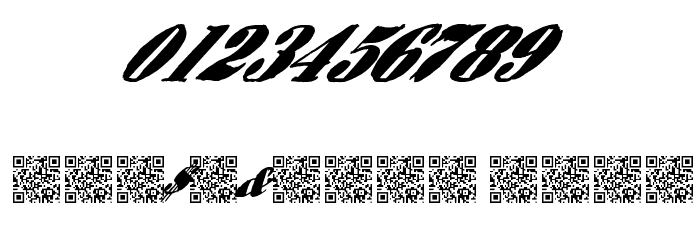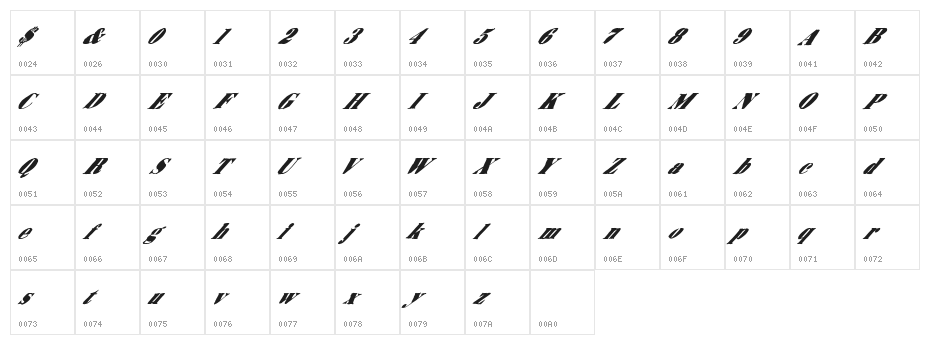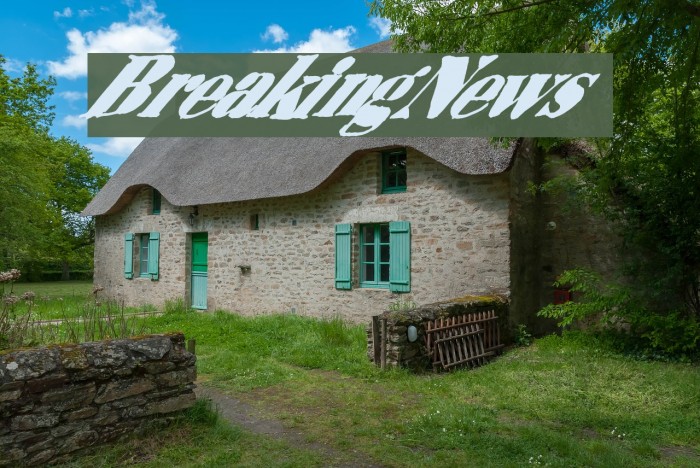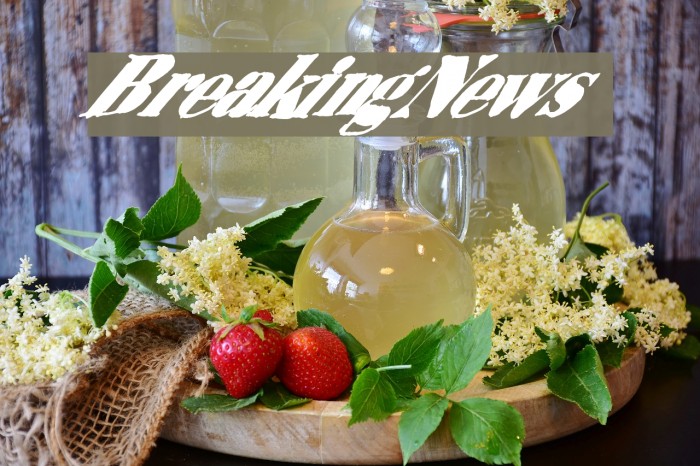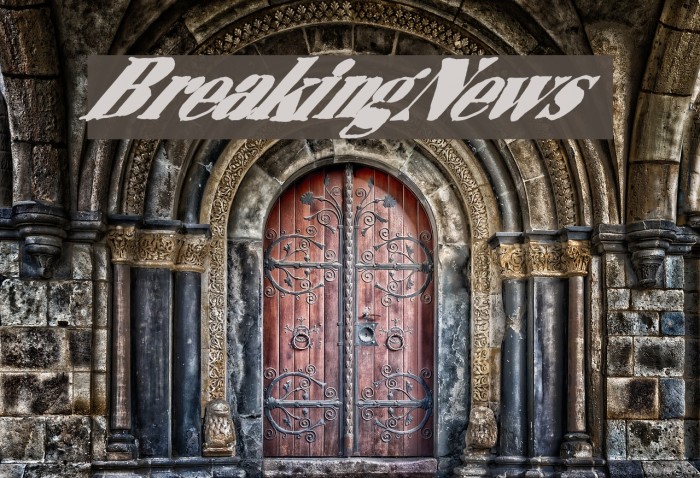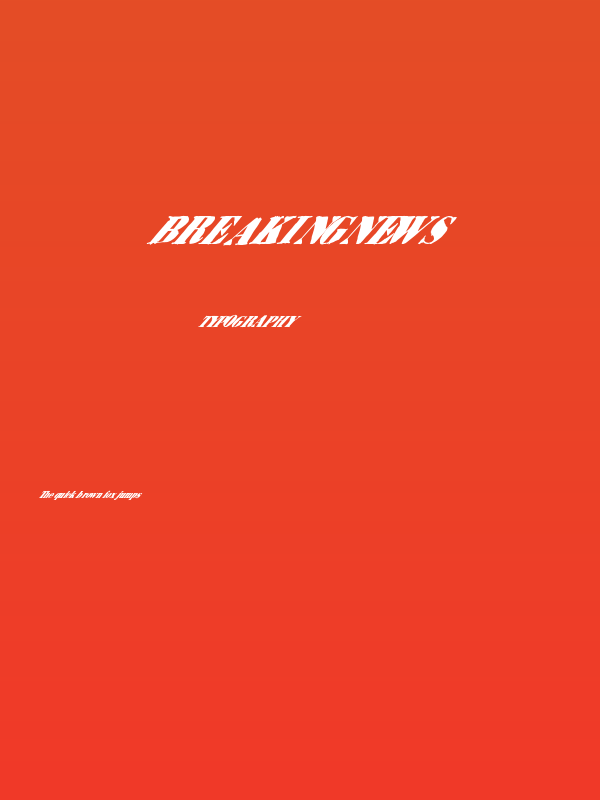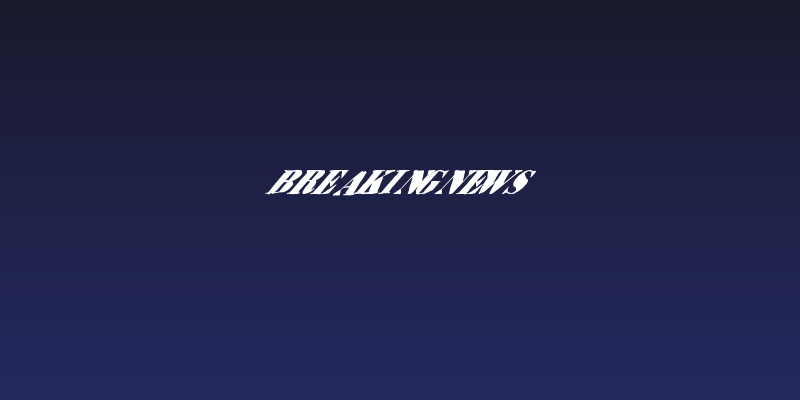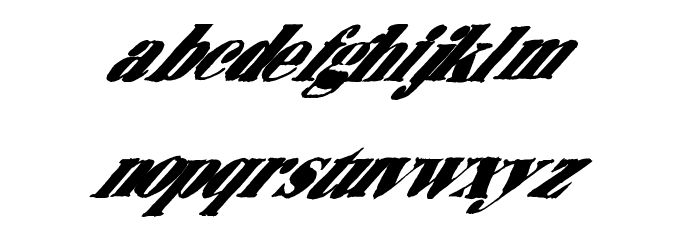
BreakingNews Font
BreakingNews Description
This font features a bold, italicized style with a strong slant to the right, giving it a dynamic and energetic appearance. The characters are tightly spaced, enhancing the sense of movement and urgency. The strokes are thick and consistent, providing a high contrast that makes the text stand out prominently. The uppercase letters are particularly striking, with sharp angles and a slightly condensed form that adds to the overall impact. The lowercase letters maintain the same boldness and slant, ensuring consistency across different text cases. Numbers and special characters follow the same design principles, making them equally bold and expressive. This font is ideal for creating attention-grabbing headlines or titles.
| Proposed Projects | Ideal for news headlines, posters, advertising, and any project requiring a bold, impactful typeface. |